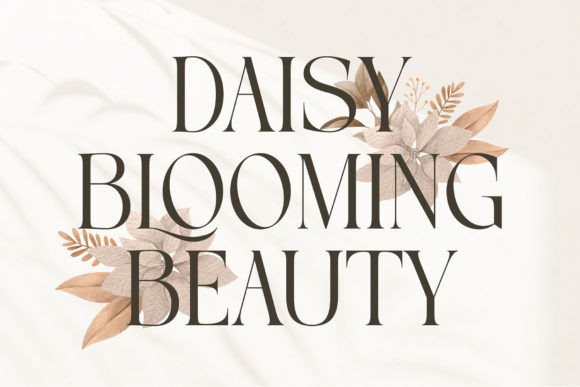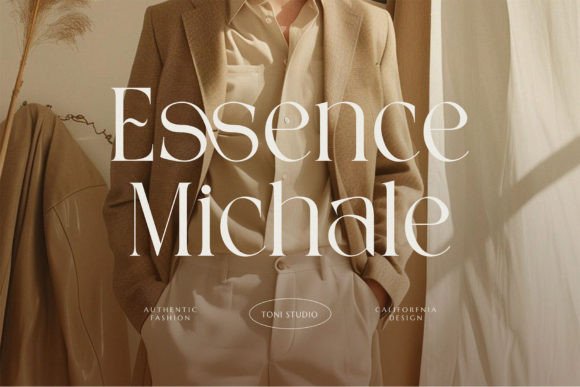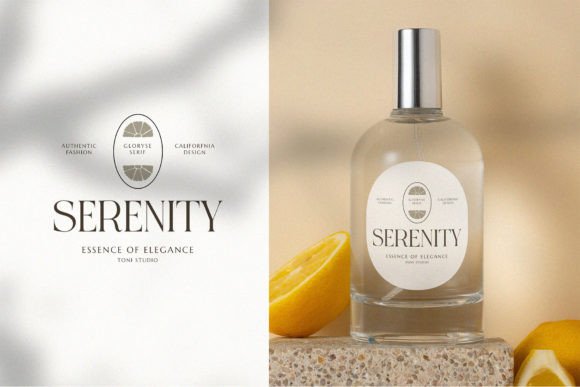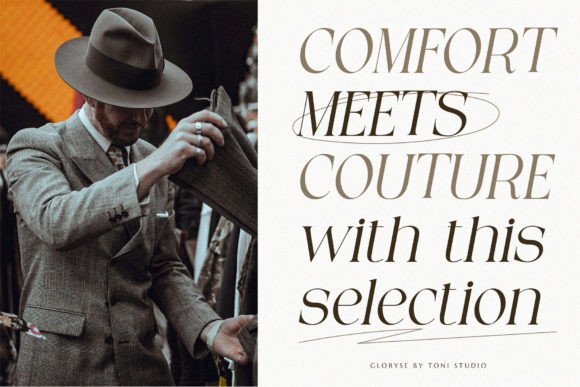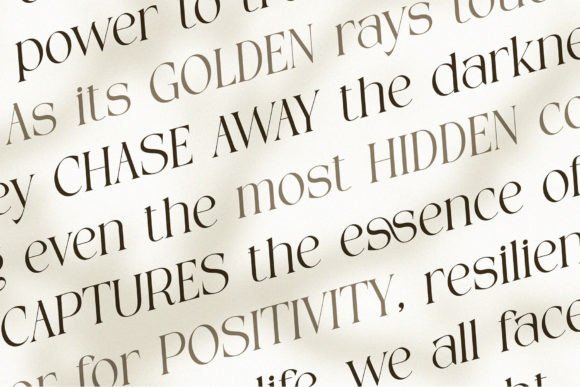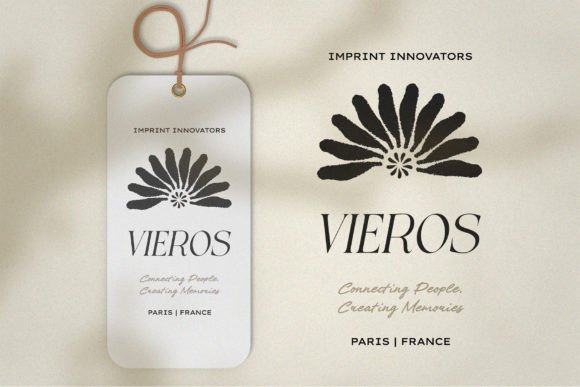
Gloryse Font – Free Download
Introduction to Gloryse Font
Introducing the new GLORYSE serif font.
| ๐ค Author | ToniStudio |
GLORYSE is a modern font that conveys a sense of elegance and class, offering beautiful typographic harmony for a variety of design projects This font is perfect for elegant & luxury logos, classy editorial designs, womenโs magazines, fashion brands, cosmetic brands, fashion promotions, modern advertising designs, invitation cards, art quotes, home decor, book titles/covers, special events, and tote bags, advertisements and more.
Key Features of Gloryse Font
Why Choose Gloryse Font?